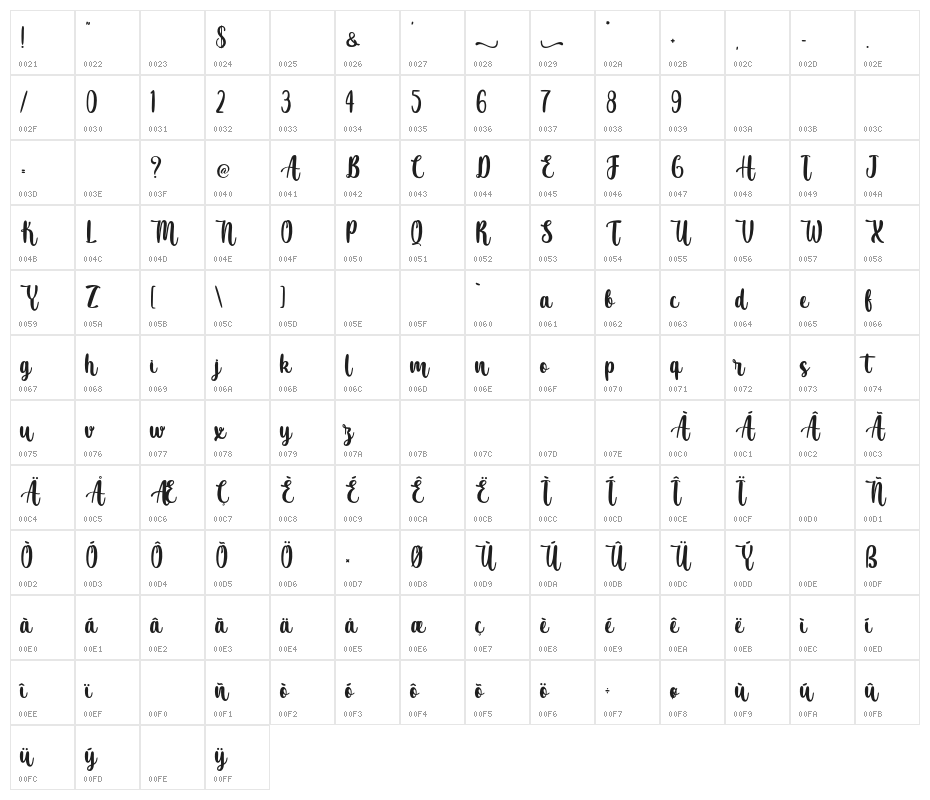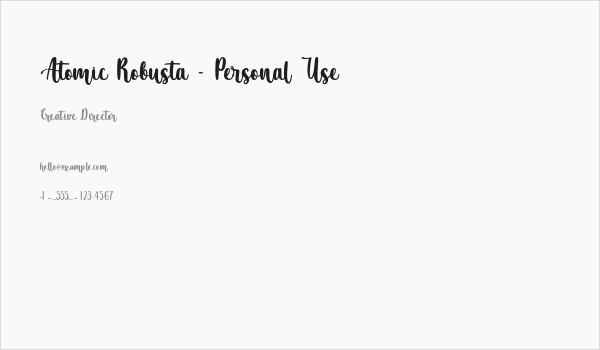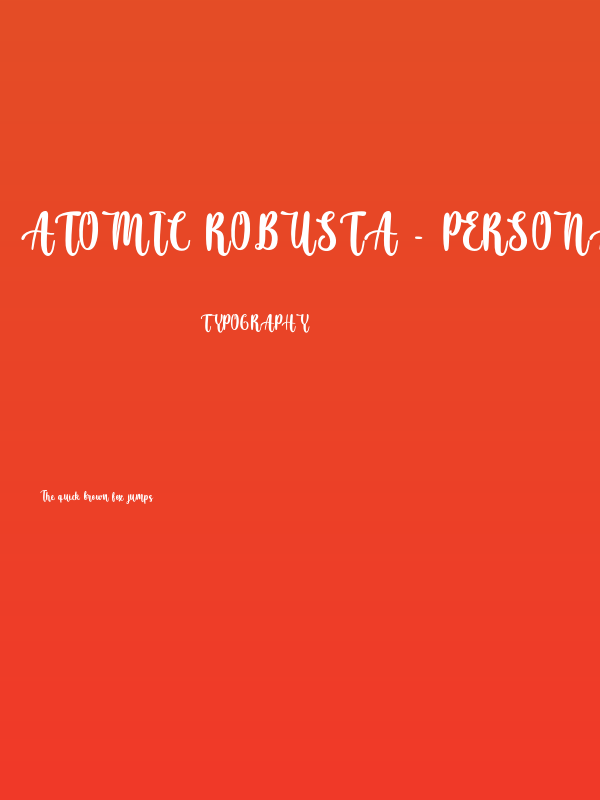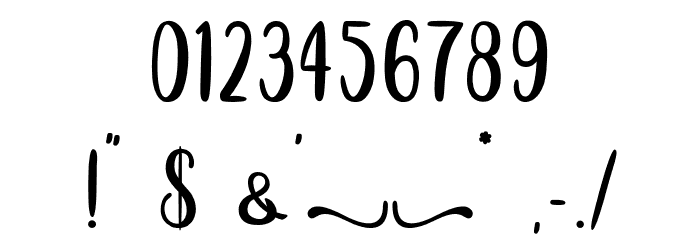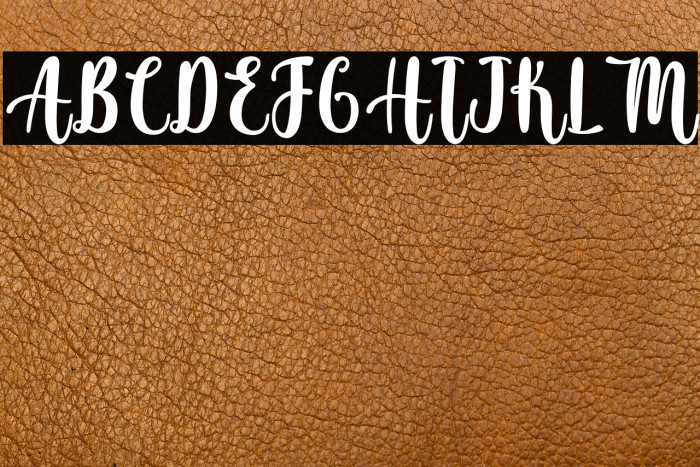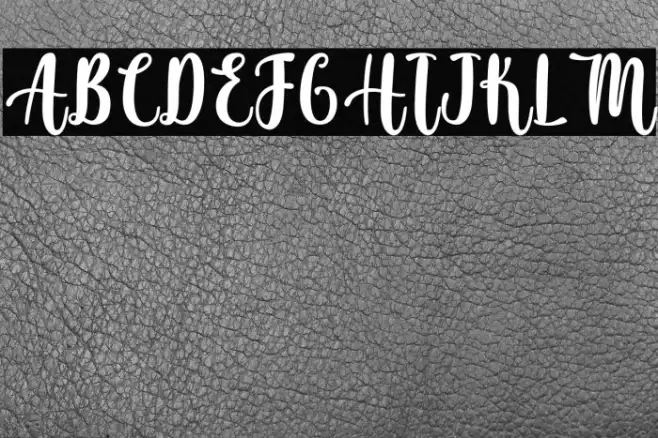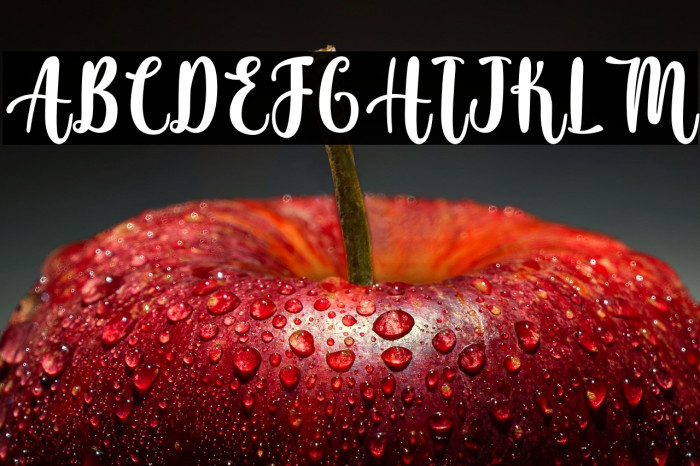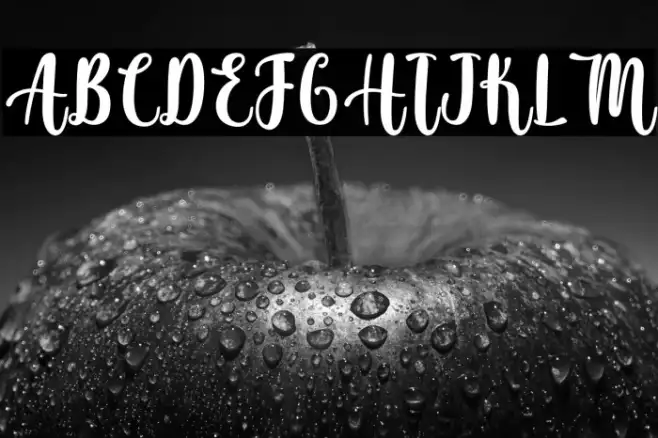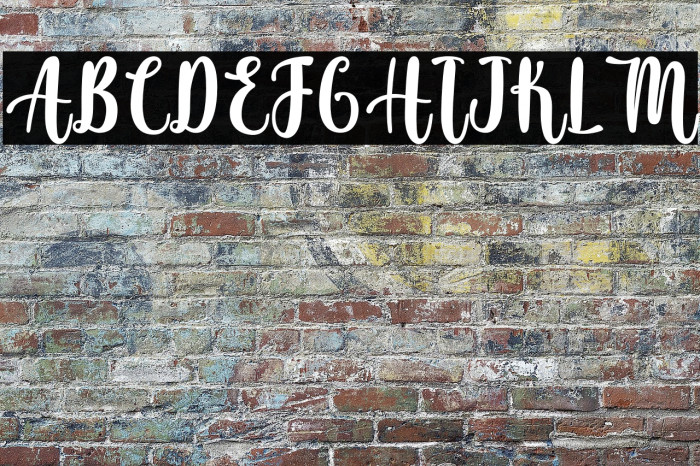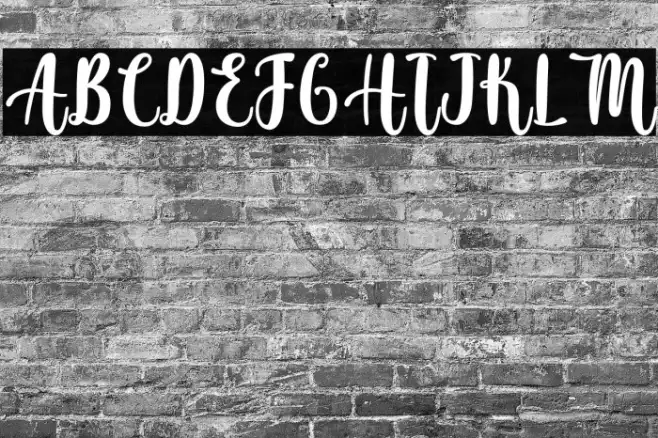
Atomic Robusta - Personal Use Font
Atomic Robusta - Personal Use Description
This font features a playful and energetic script style with a handwritten appearance. The letters are bold and have a flowing, cursive design that adds a sense of movement and liveliness. The uppercase characters are elegantly looped and slightly exaggerated, while the lowercase letters maintain a consistent rhythm with smooth transitions. The numbers and special characters are crafted to match the overall whimsical aesthetic, making them suitable for creative projects. The font's thick strokes and rounded edges contribute to its friendly and approachable look.
| Proposed Projects | Ideal for greeting cards, invitations, branding, and social media graphics. |